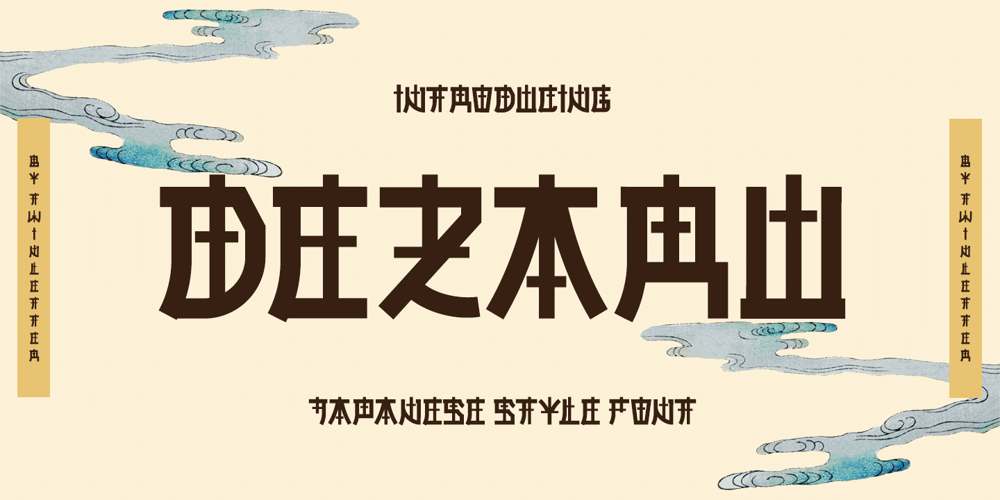
Dezaru Faux Font Family was designed by Rozikan and published by Twinletter. Dezaru Faux contains 1 styles and family package options. DEZARU is a fictitious Japanese display font created by combining Japanese letters with well-known and understood san serif fonts from throughout the world. Imagine all promotional materials can be understood and understood by all audiences in various parts of the world, your message will reach the hearts of the audience, and your brand will be very easy to remember by many people because the display of this font is contemporary and different from the others.Logotypes, food banners, branding, brochure, posters, movie titles, book titles, quotes, and more may all benefit from this font.Of course, using this font in your various design projects will make them excellent and outstanding; many viewers are drawn to the striking and unusual graphic display.Start utilizing this typeface in your projects to make them stand out.